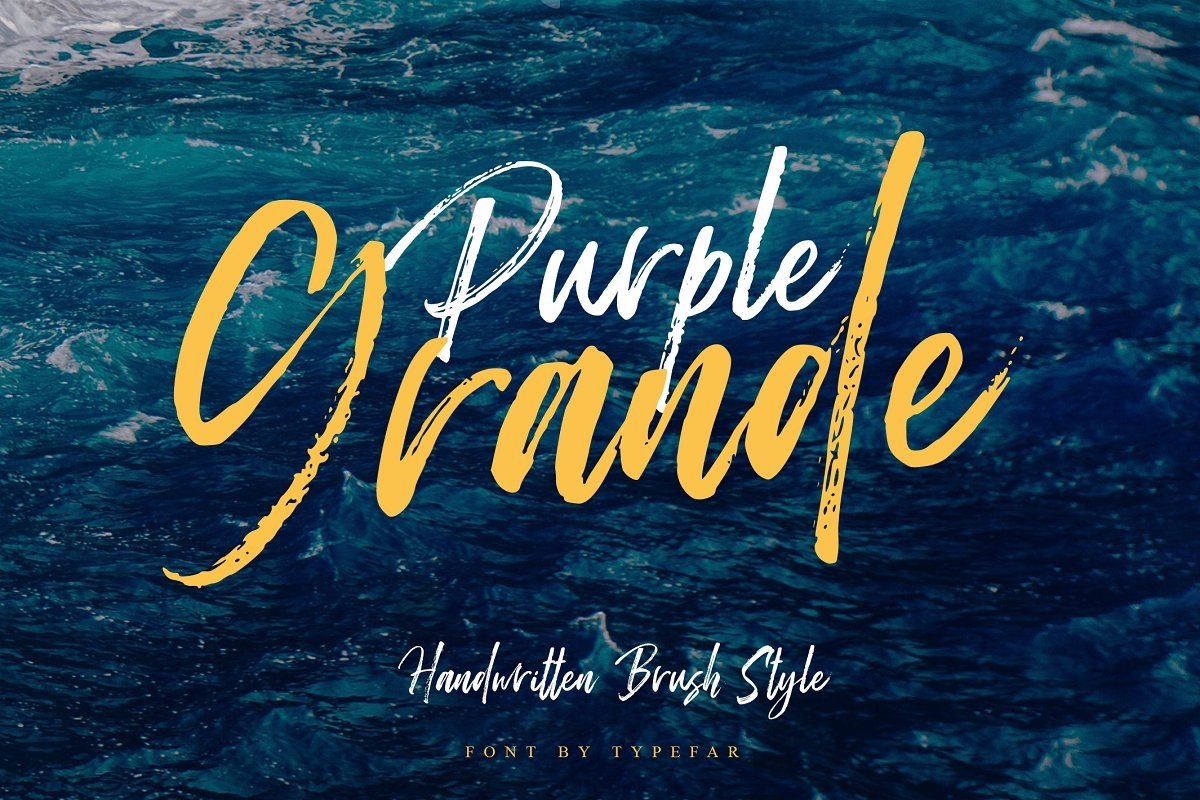
Purple Grande - Handwritten Font
Purple Grande italic
Purple Grande
New … New … New … Purple Grande – The font we designed for you  , Purple Grande is a font like that handwriting, made using a brush so that it looks natural and elegant.Purple Grande fonts are perfect for an authentic brush-lettered feel on your branding, prints, merchandise, websites, quotes and more.Fonts Included (as OTF and TTF):Purple Grande ItalicI hope you enjoy Purple Grande! and can’t wait to see what you make ? thanks